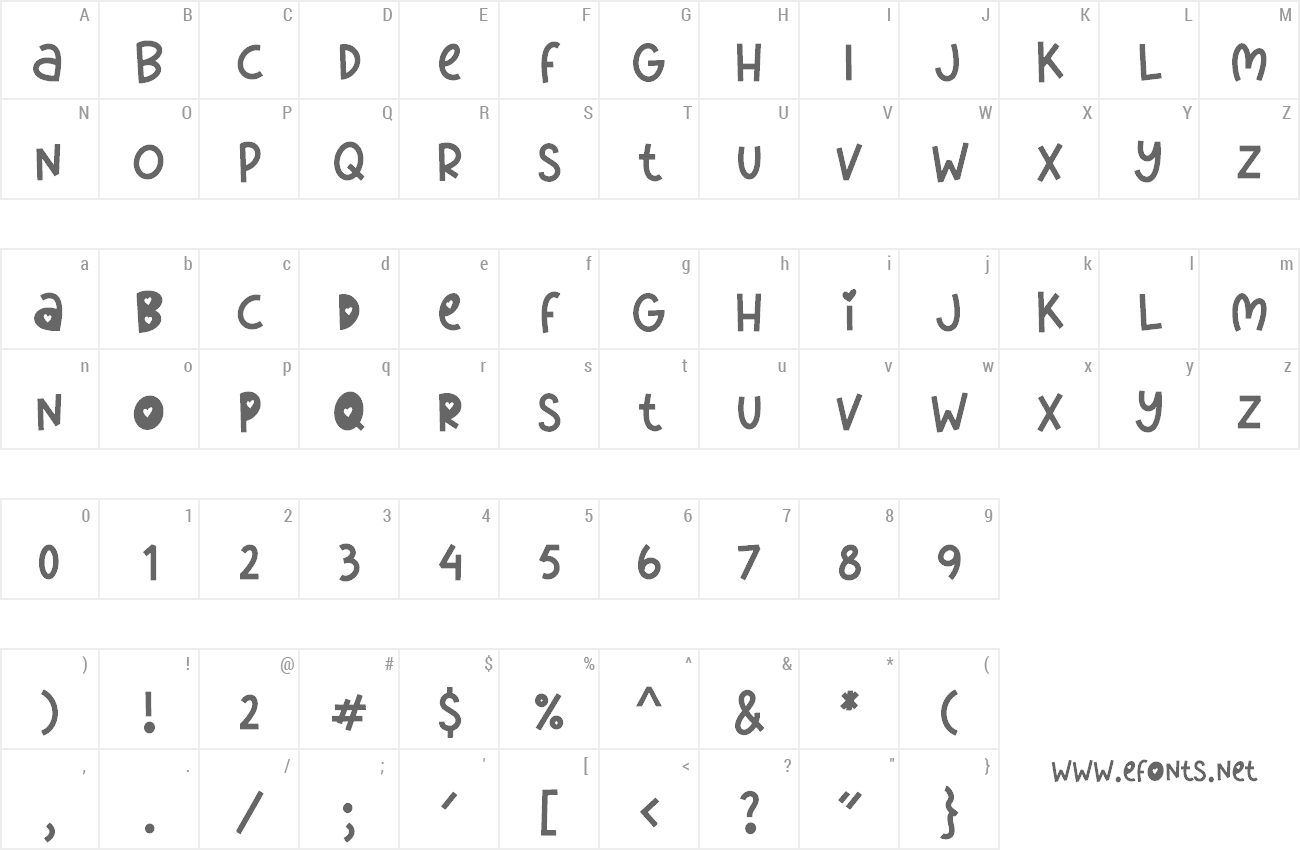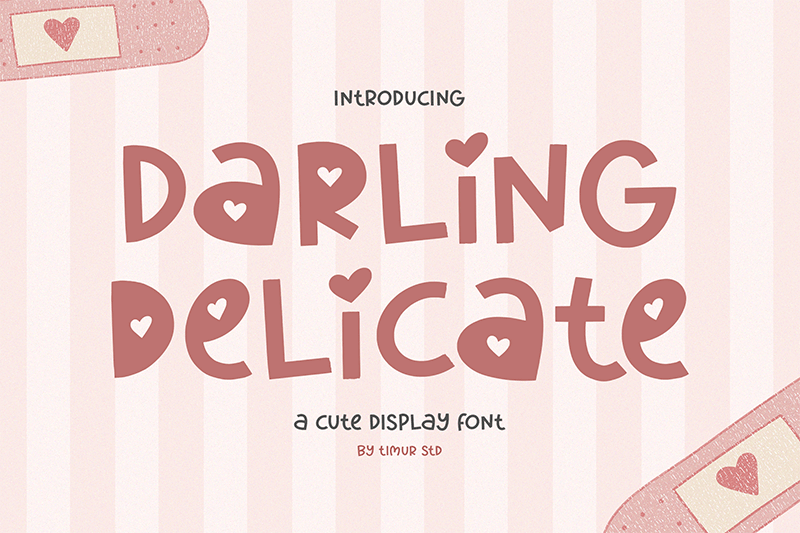
| Font name: | Darling Delicate |
| Author: | Timur Type |
Introduced by Timurtype Studio! Darling Delicate is a Cute Display Font This font embodies a charming and adorable aesthetic that adds a playful touch to any design. These fonts feature delightful and whimsical letterforms with cute elements such as rounded edges, sweet symbols, and endearing embellishments. With their cheerful and lovable style, cute display fonts are perfect for creating eye-catching headings, logos, and titles that evoke a sense of warmth and friendliness. Whether used in children's books, branding projects, or social media graphics, these fonts bring a sense of joy and innocence to the overall design. Embrace the cuteness and create designs that are irresistibly charming and inviting with a cute display font. These fonts include: OTF TTF WOFF Darling Delicate Font also supports multilingualism. Darling Delicate Font features premium : -Full Set of standard alphabet and punctuation By installing or using this font, you are agree to the Product Usage Agreement: � This demo font is ONLY for PERSONAL USE. NO COMMERCIAL USE ALLOWED! � Here is the link to purchase full version and commercial license: https://timurtype.com/product/darling-delicate/ � For Corporate use you have to purchase Corporate license timurtype.studio@gmail.com More... |